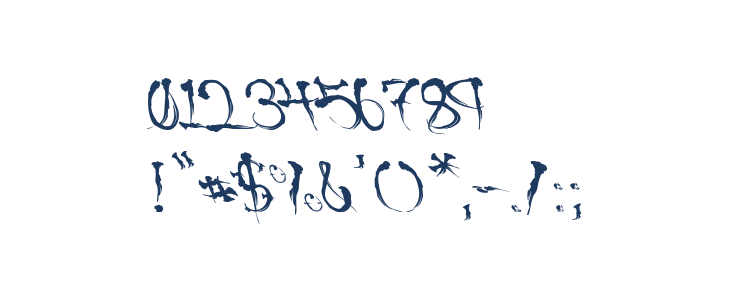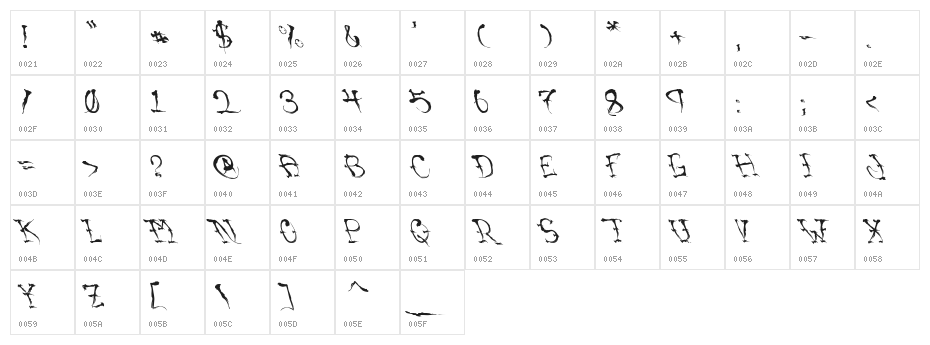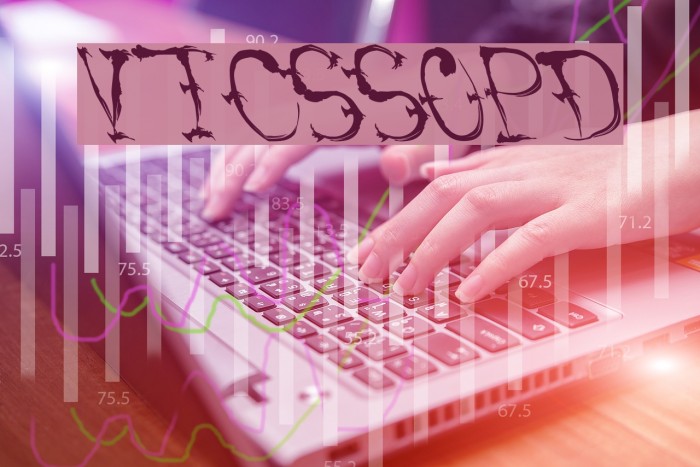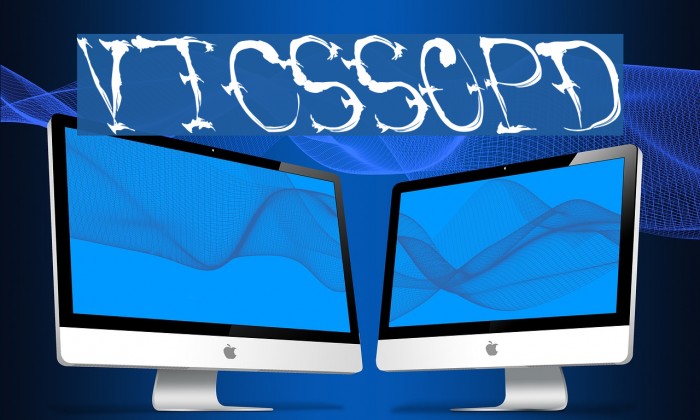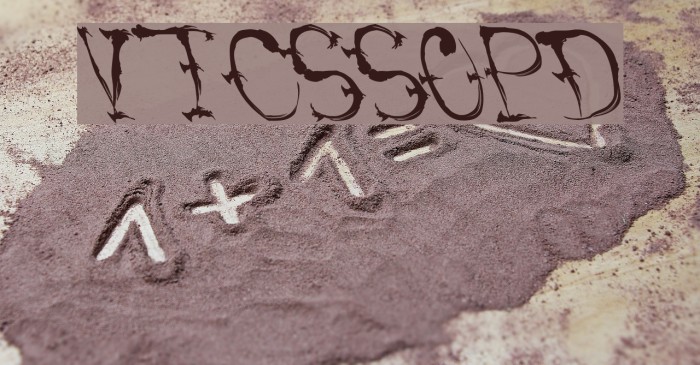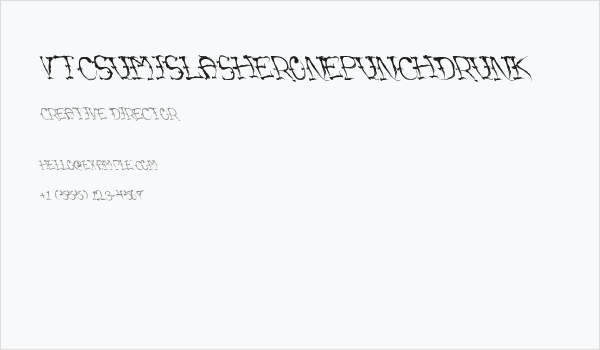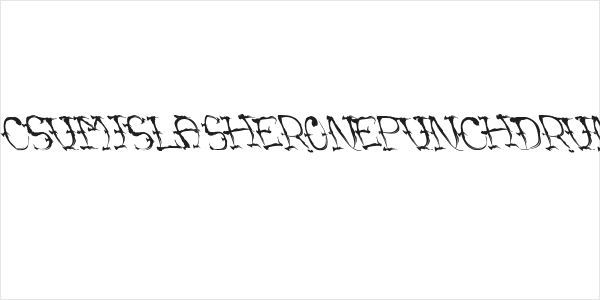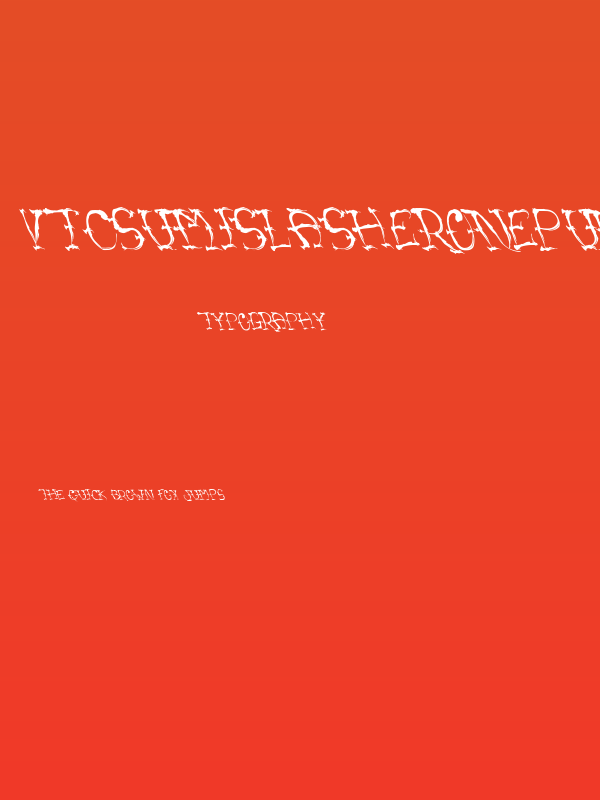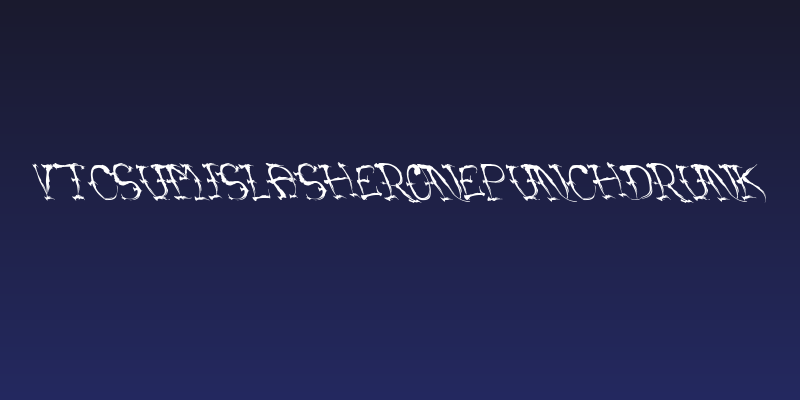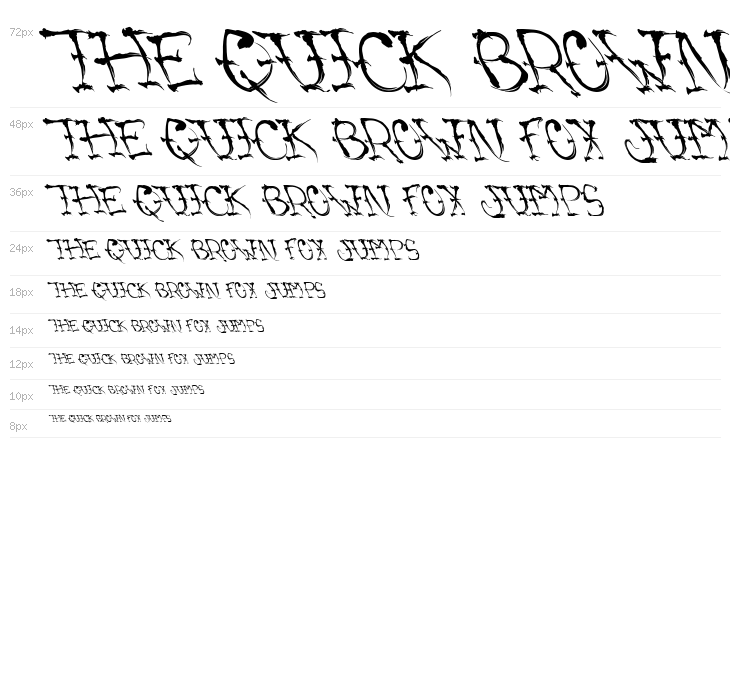
VTCSumiSlasherOnePunchDrunk Font
VTCSumiSlasherOnePunchDrunk Description
This font features a highly decorative and edgy design, characterized by sharp, thorn-like extensions and irregular, jagged edges. The letters appear as if they are crafted from twisted vines or barbed wire, giving them a chaotic and intense appearance. The strokes are uneven, with some parts being thicker and others tapering to fine points, creating a dynamic and aggressive visual impact. This style is reminiscent of graffiti or horror-themed aesthetics, making it stand out with its bold and unconventional look.
| Use Case | Logos, Posters, Album covers |
| Proposed Projects | Ideal for horror-themed posters, edgy album covers, rebellious fashion branding, or any project requiring a bold, unconventional typeface. |